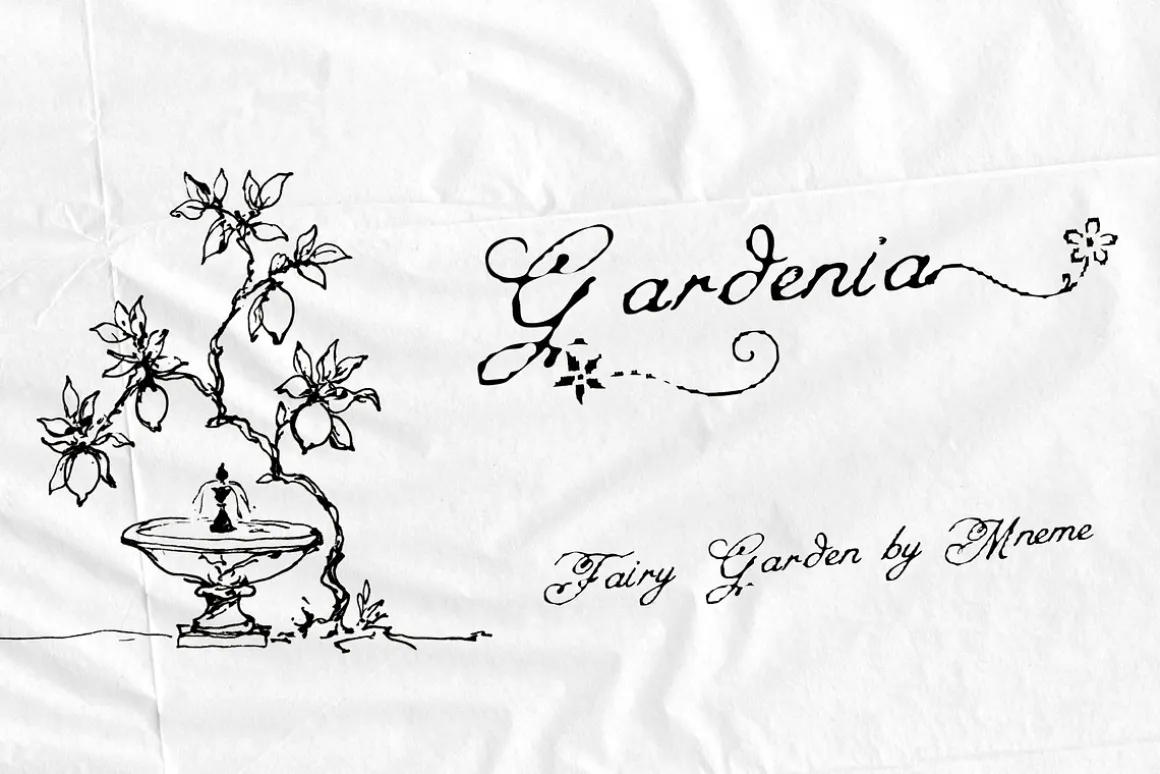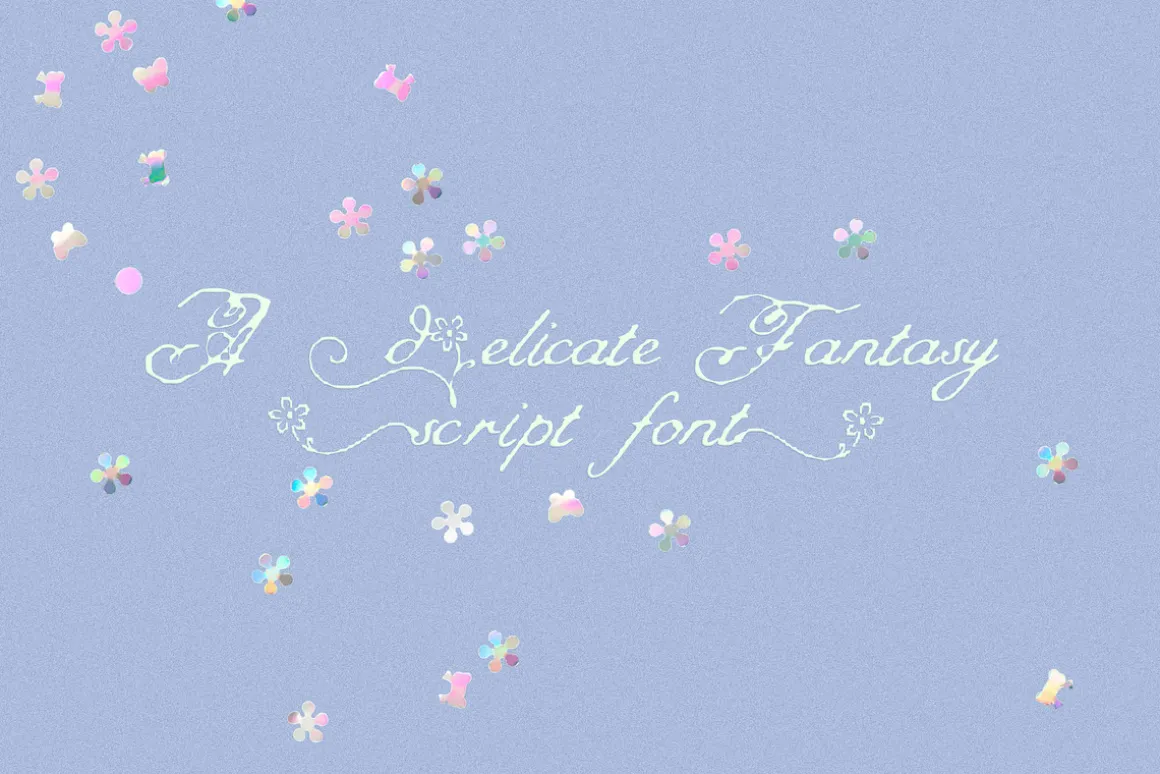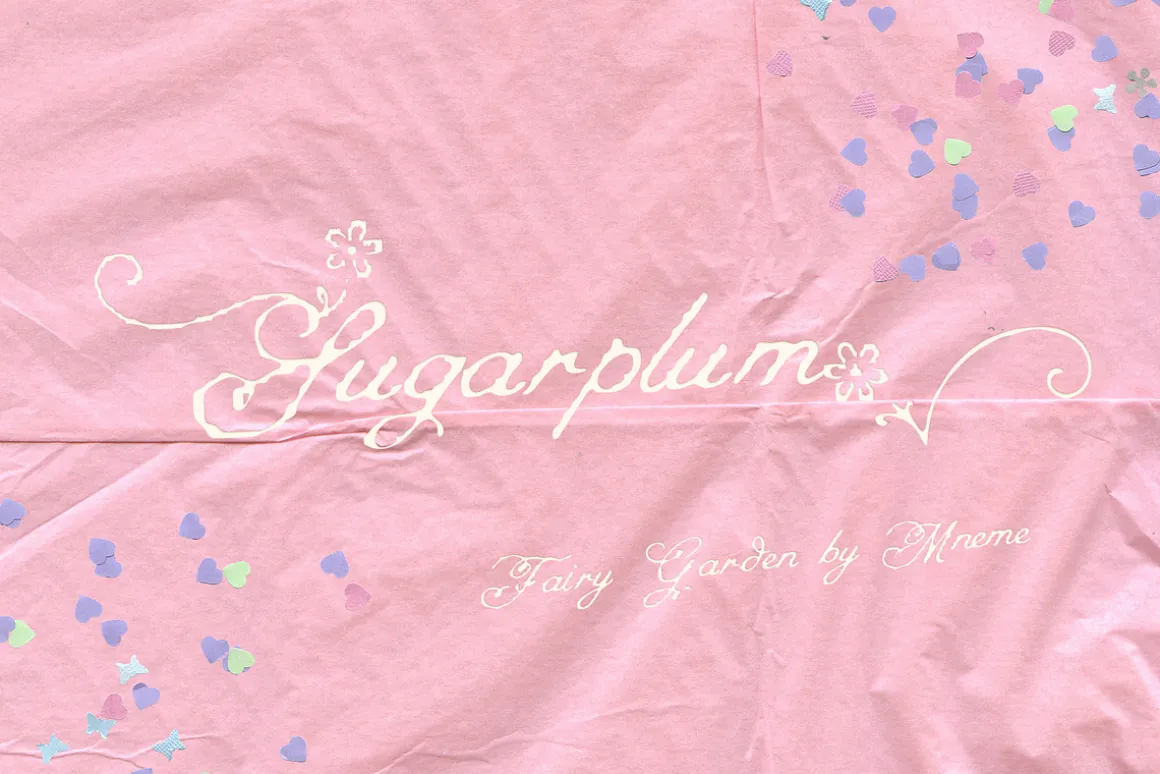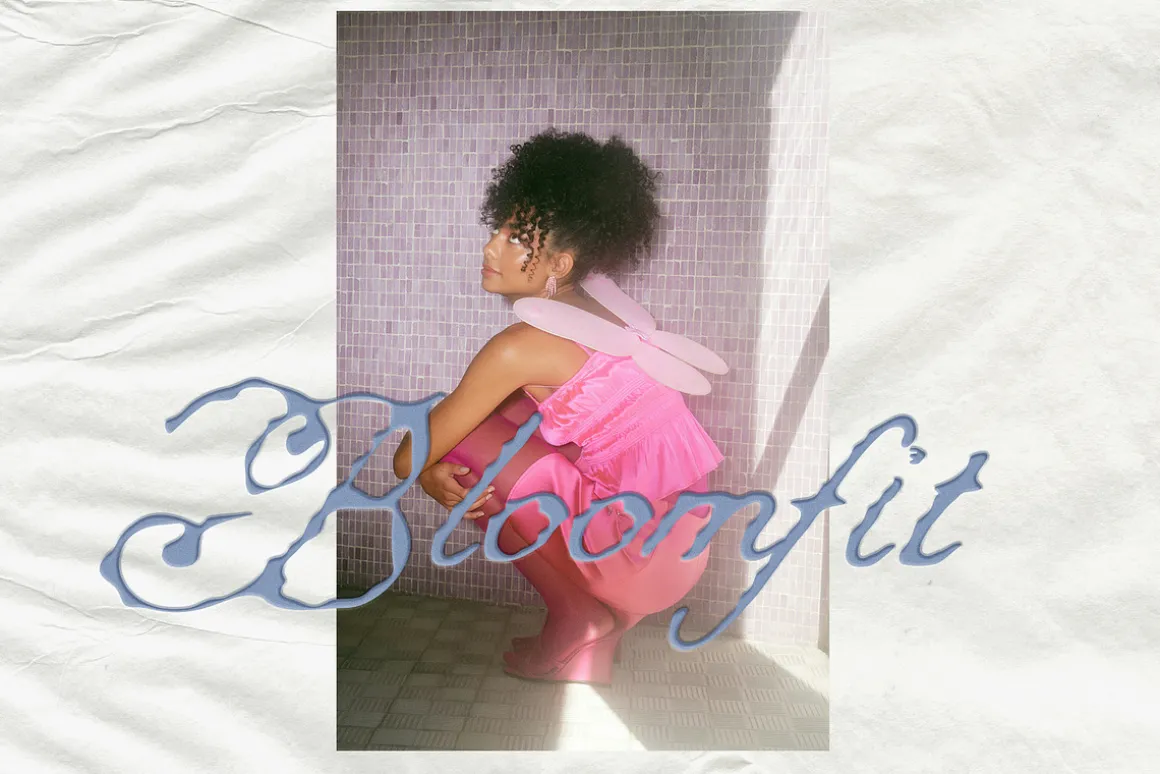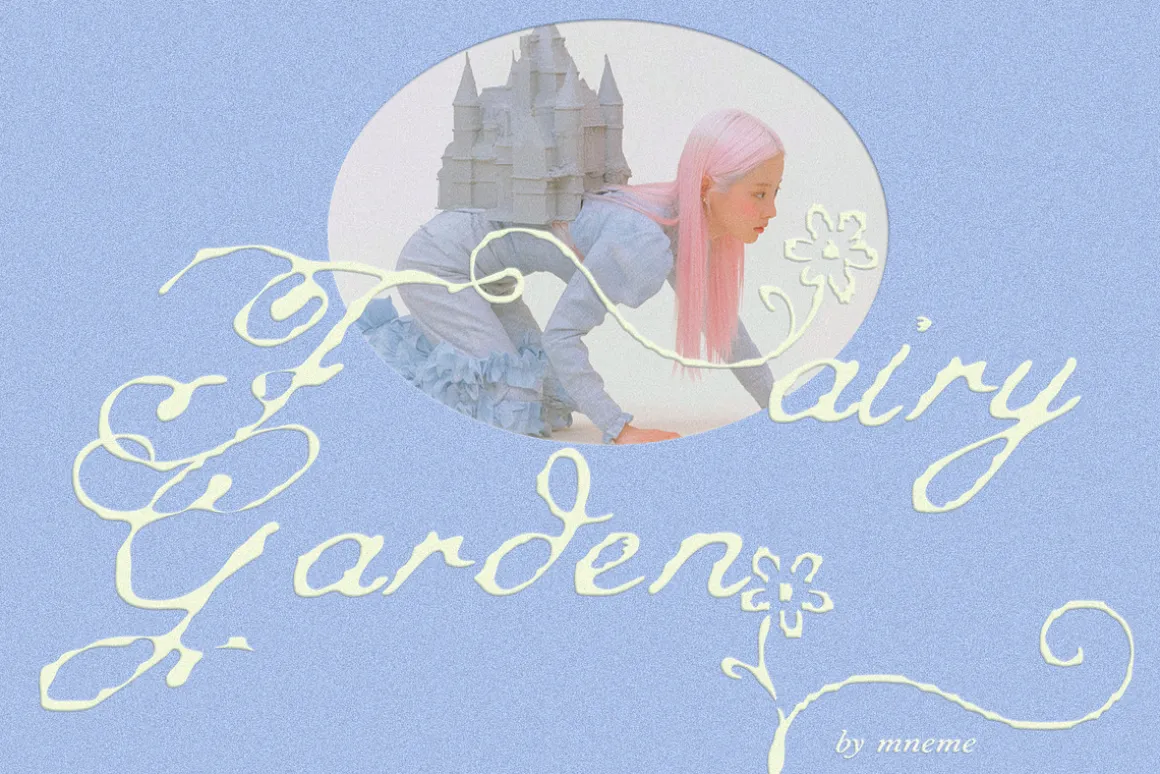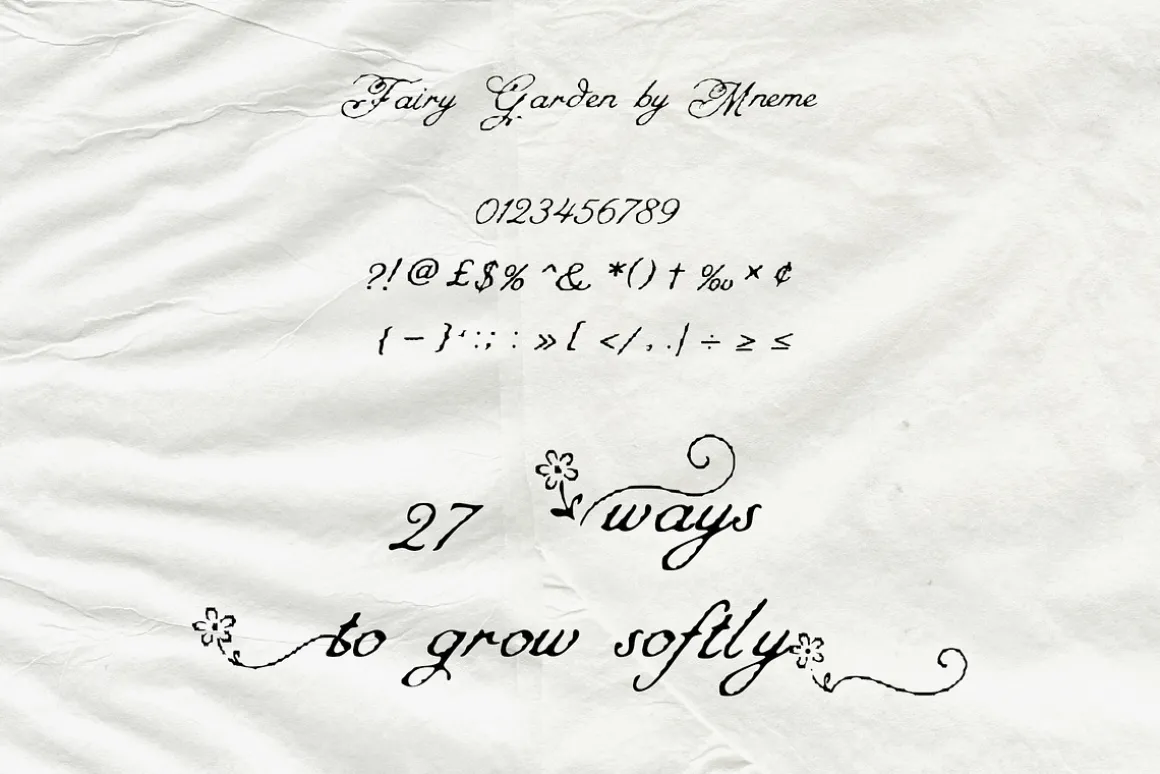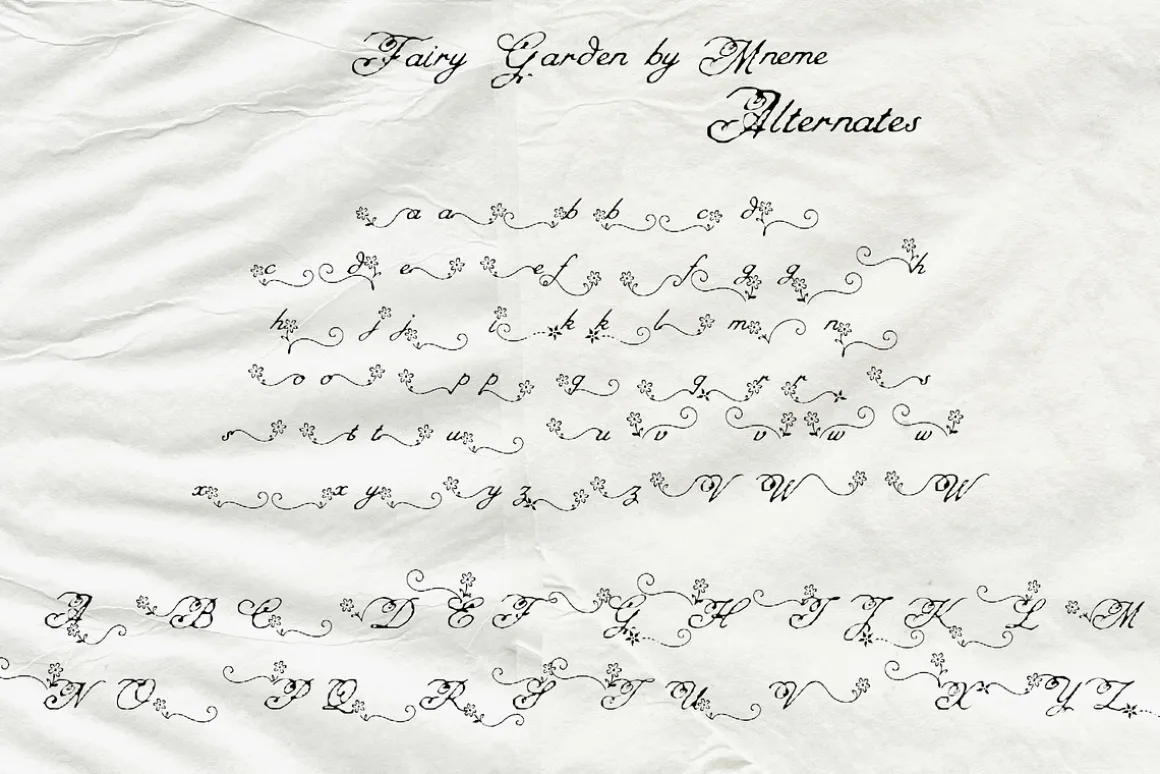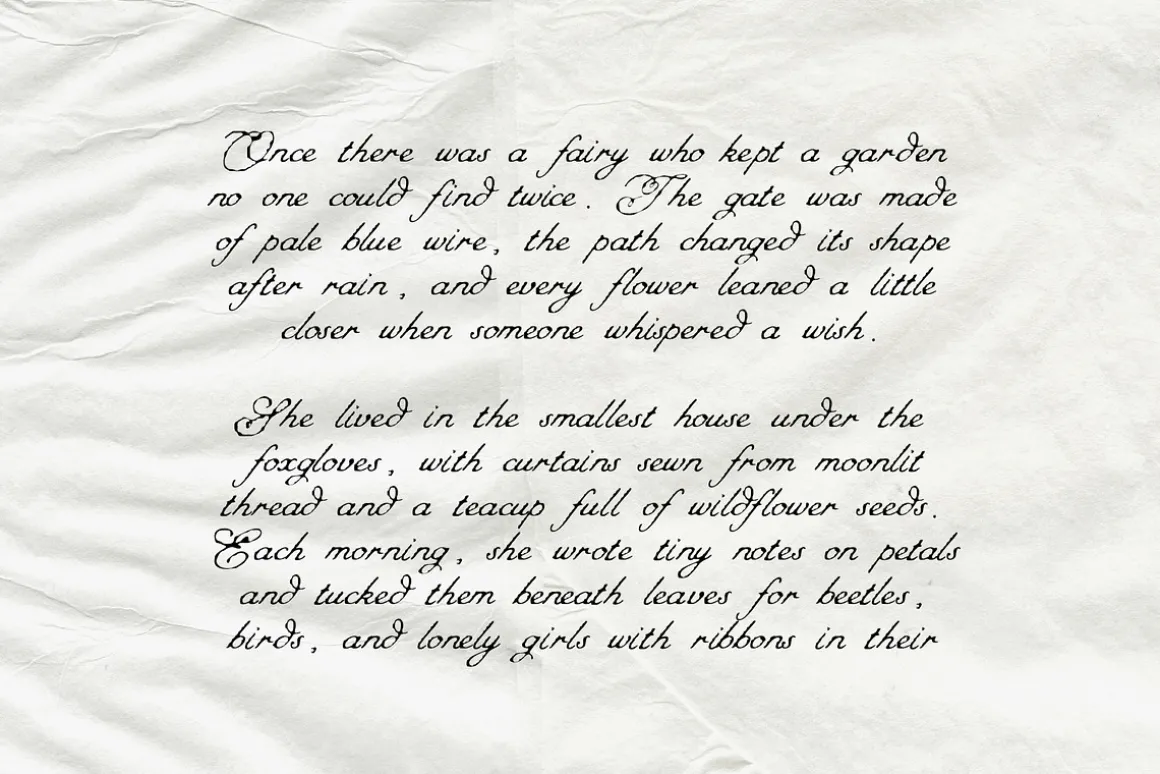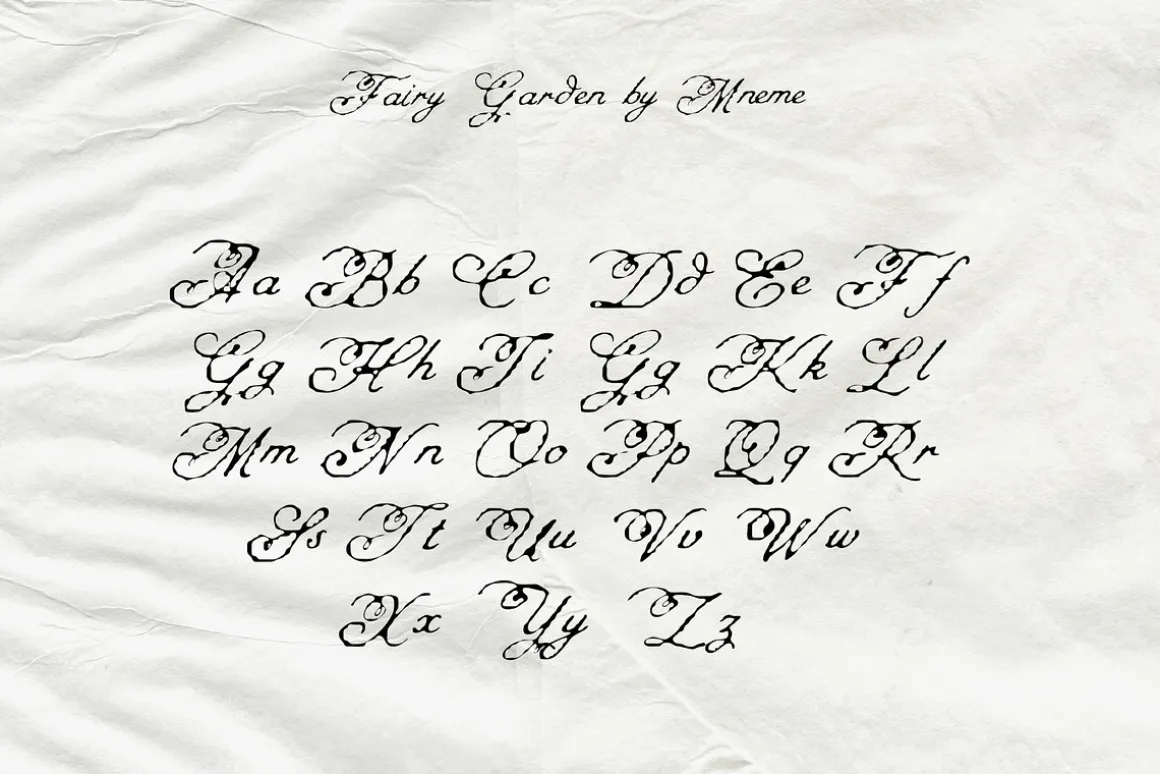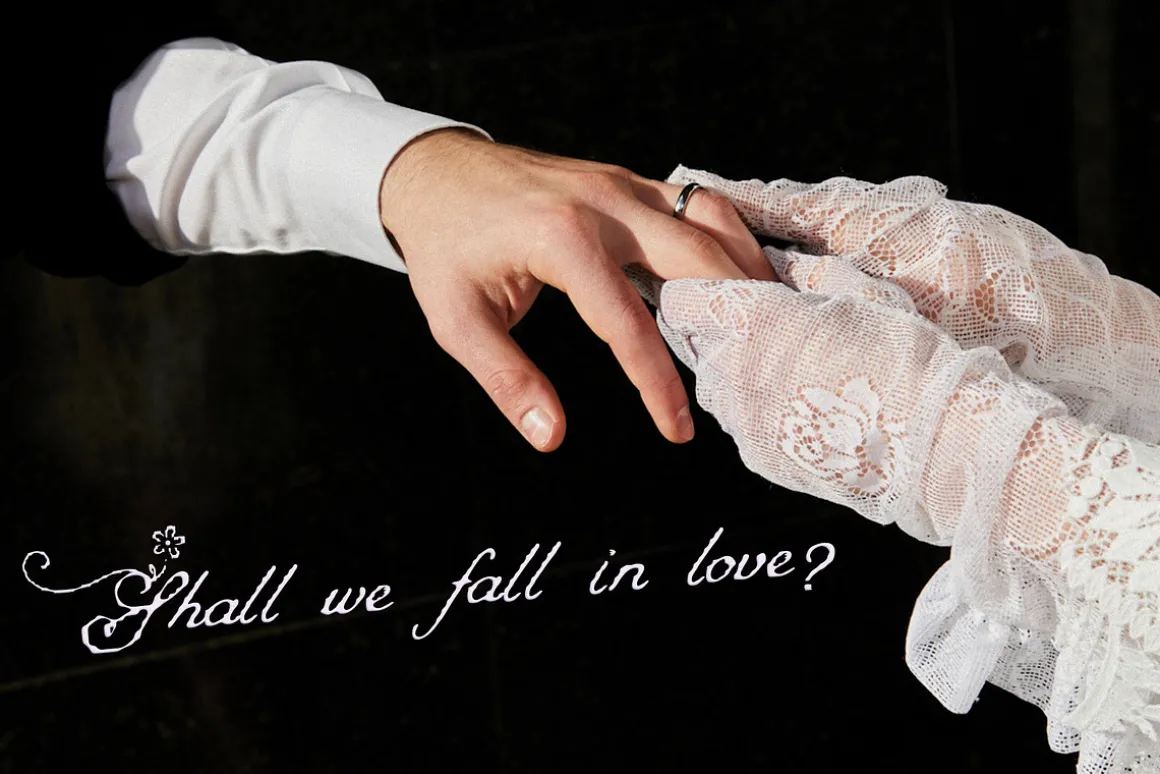
Fairy Garden is a delicate fantasy script font with soft flowing letters, dreamy curls, floral details, and a little enchanted-garden feeling. It was made for designs that need something light, feminine, magical, and softly decorative – like a note written inside a fairy book or a name growing across pale blue paper.
The font has a whimsical handwritten rhythm, with long wandering swashes, romantic curves, and blooming alternates that can turn simple words into small visual moments. It feels playful and dreamy, but still elegant enough for branding, packaging, invitations, logos, stationery, editorial titles, and social media graphics.